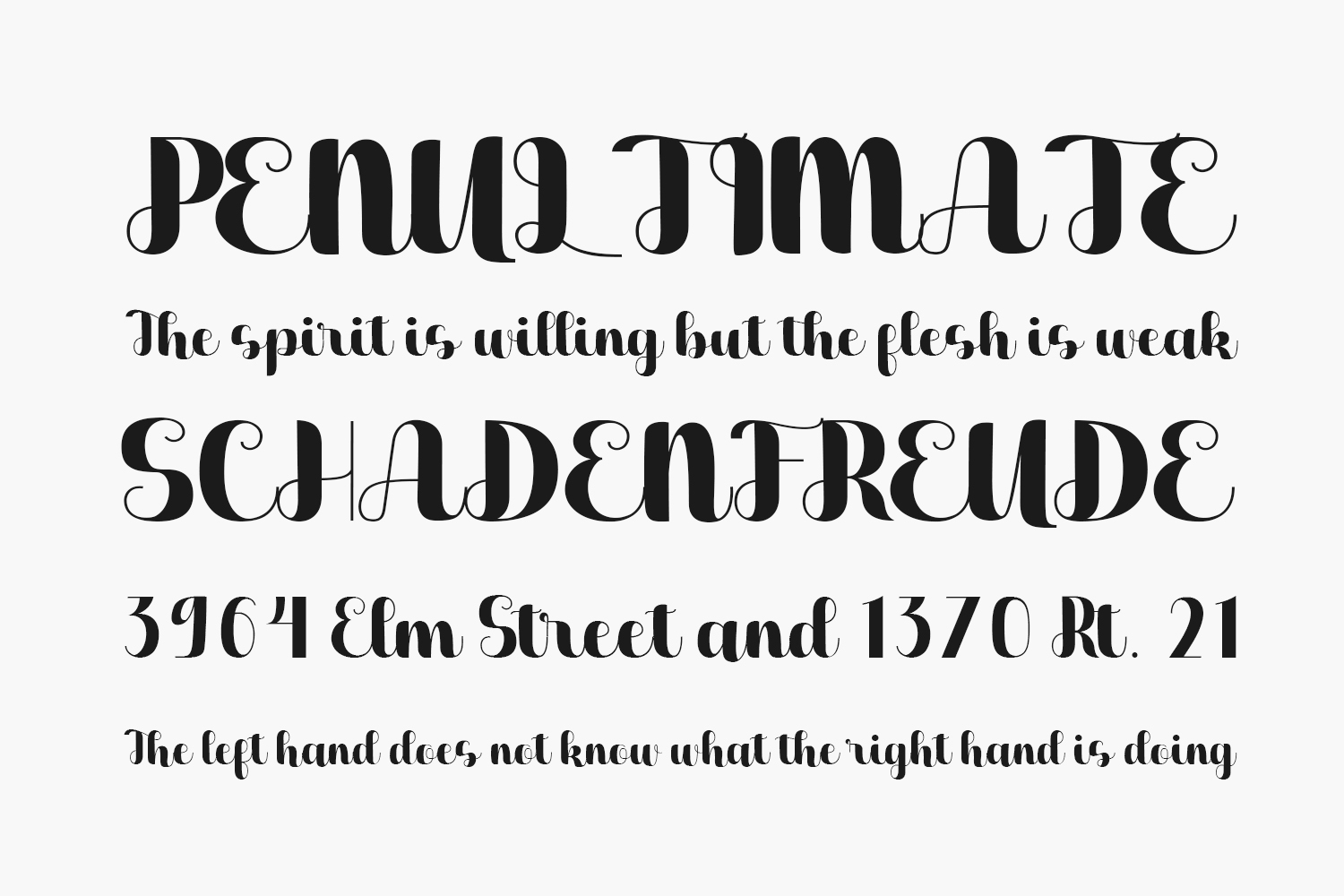
Dilaney Free Font is a delicate and sweet handwritten font. It embodies charm and authenticity, and it is perfect for each of your creative projects that need a unique personal note. Dilaney Free Font was designed by StringLabs and is free for personal use only. Please purchase the full version for commercial use.